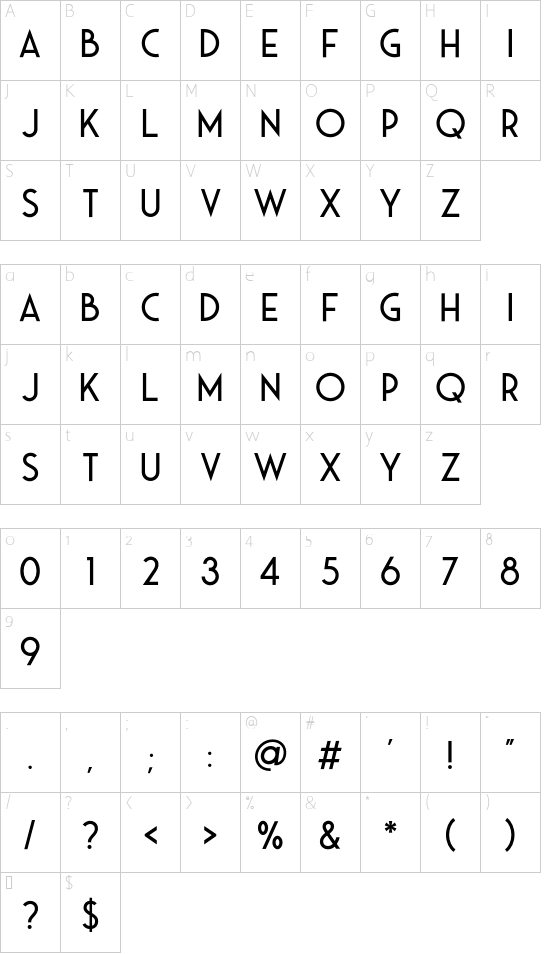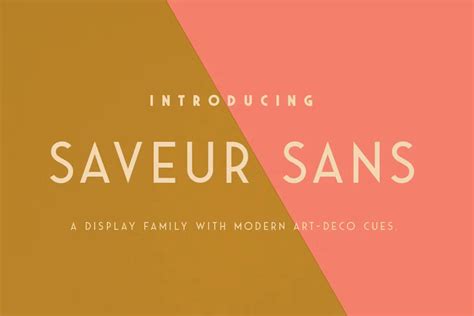
Saveur Sans Font. These don't always fit into a clear category like. Saveur sans is inspired by art deco and french cafes.
This display family has clean, simple letterforms that. Web saveur sans is inspired by art deco and french cafes. Saveur sans is inspired by art deco and french cafes. This display family has clean, simple letterforms that feel. ← back to family page. These don't always fit into a clear category like. Web saveur sans is a great selection for headlines, logotypes and branding. Many fonts contain alternate glyph designs for a purely esthetic effect;
This display family has clean, simple letterforms that feel. Many fonts contain alternate glyph designs for a purely esthetic effect; This display family has clean, simple letterforms that feel. This display family has clean, simple letterforms that. Web saveur sans is a great selection for headlines, logotypes and branding. ← back to family page. These don't always fit into a clear category like. Web saveur sans is inspired by art deco and french cafes. Saveur sans is inspired by art deco and french cafes.